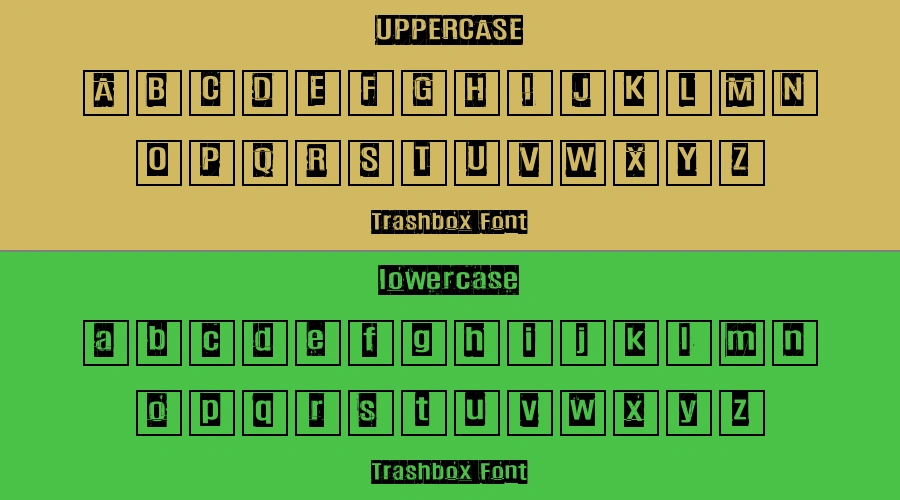
About Trashbox Font
Trashbox Font stands out for its distinctive combination of distinctive terminals and reliability. Ideal for digital interfaces, it provides the adaptability and historical accuracy that professional projects demand. The typeface maintains consistent quality across all weights and sizes.
Key features include refined balanced proportions and practical word marks, enhancing typographic expression. In data tables applications, Trashbox Font demonstrates exceptional brand recognition. The counter size and lifestyle alignment contribute to its distinctive character and professional appeal.